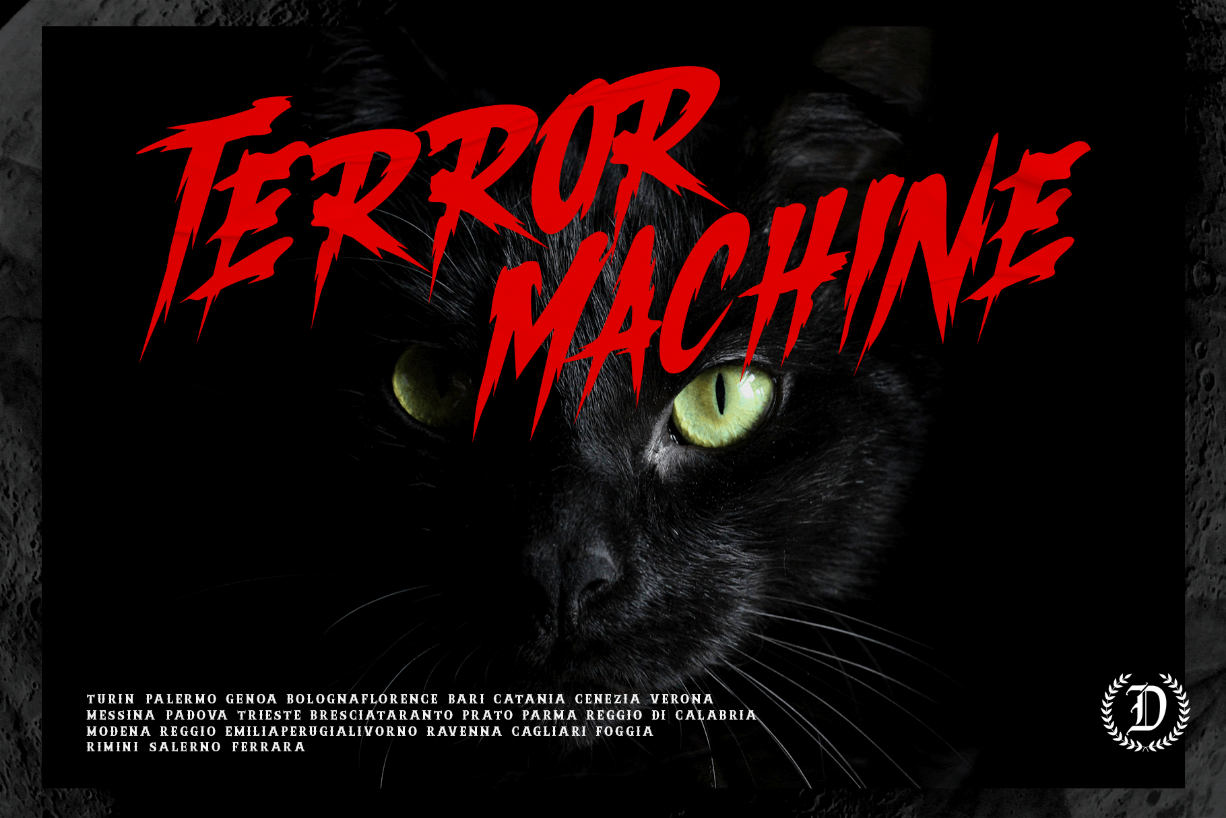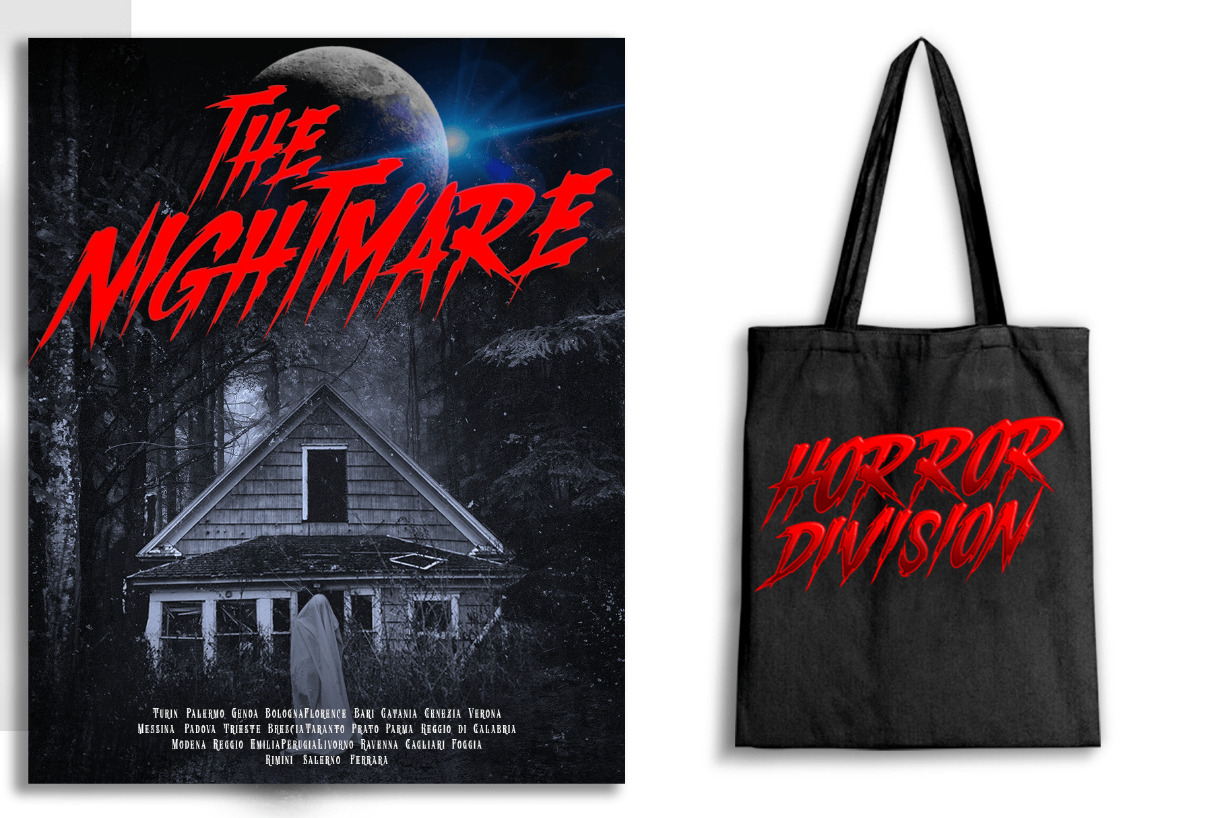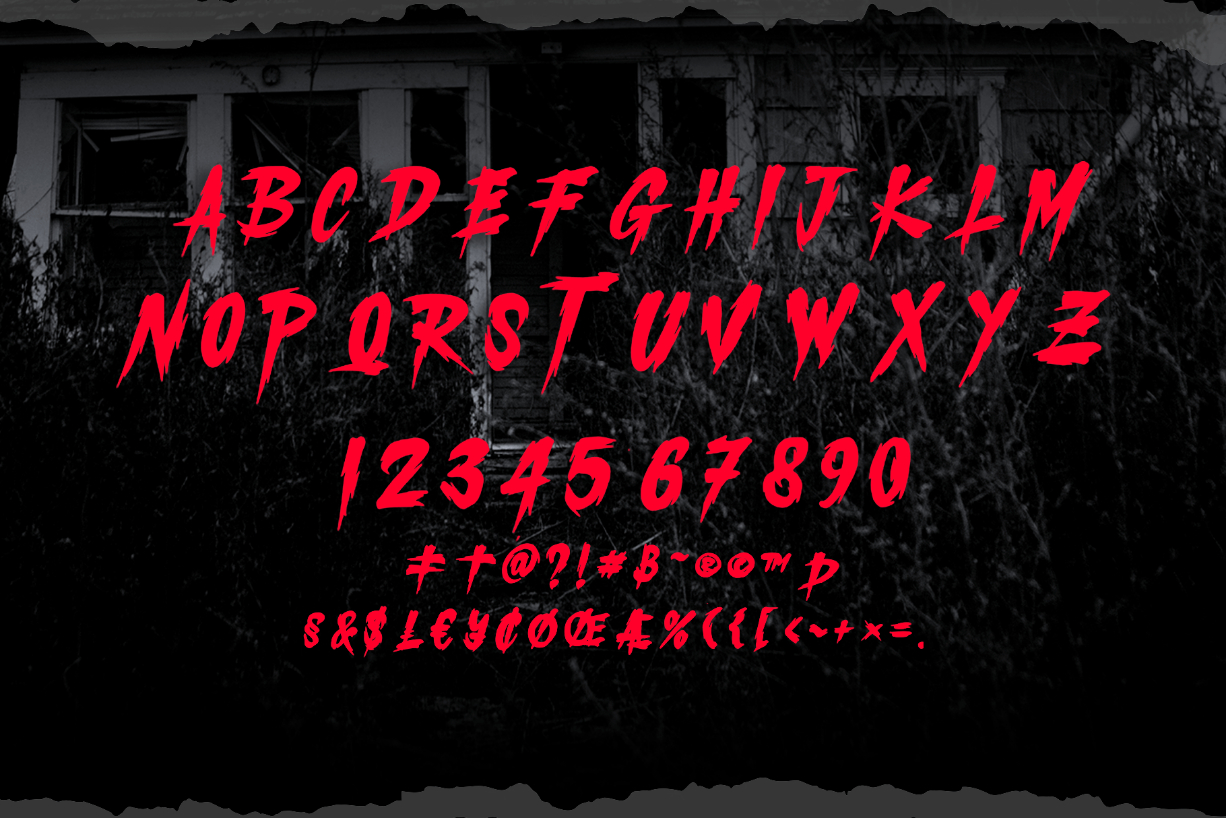
About Metalmol Font
Metalmol Horror Metal Blackletter Font
Metalmol is a distinct, highly detailed Horror Metal Font. It would make a great choice for exquisite retro-urban designs, tattoo business branding, logos, vintage designs, and more.